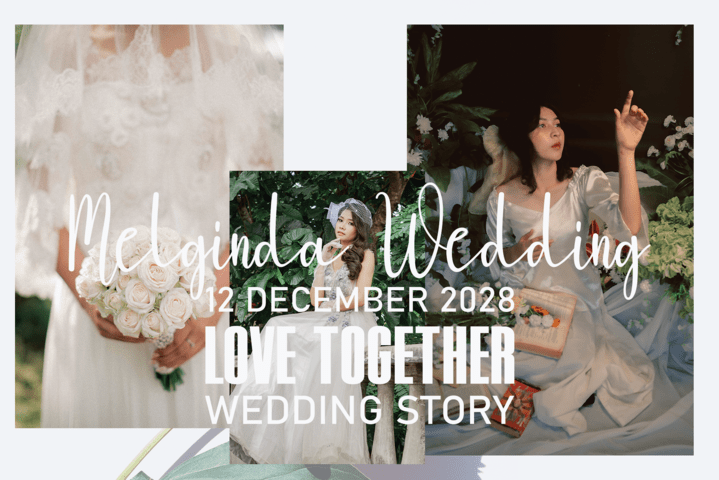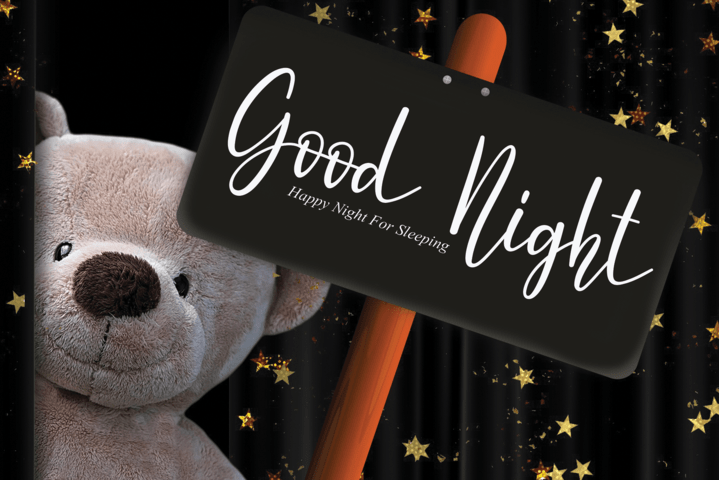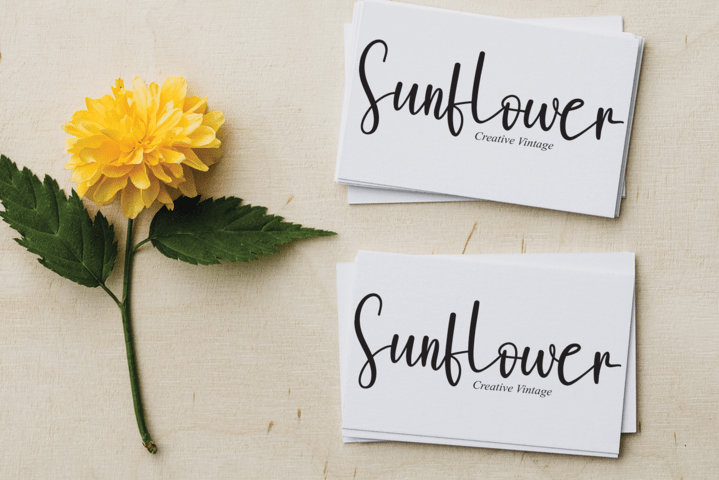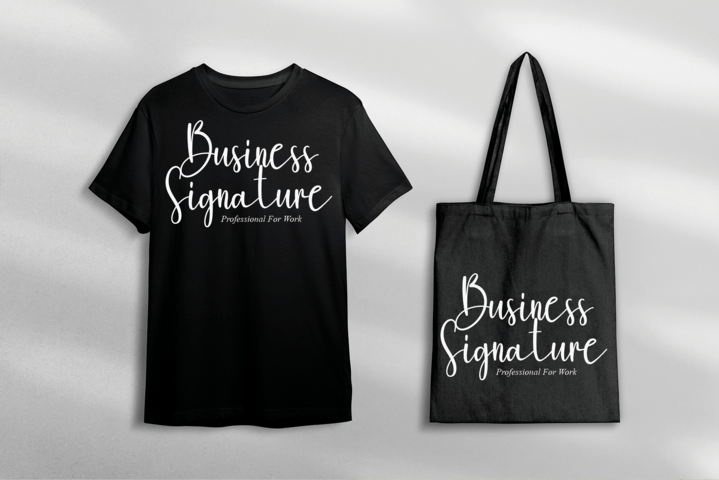
Ashley Felhan Font
Ashley Felhan Script Font
It’s a lovely script font featuring charming, playful characters that seem to dance along the baseline. Add this font to your most creative ideas, and notice how it makes them stand out!